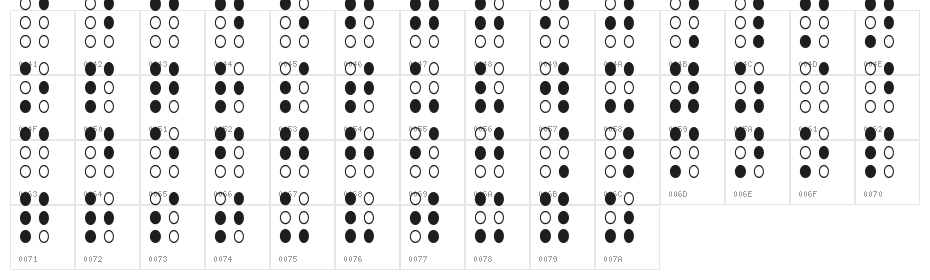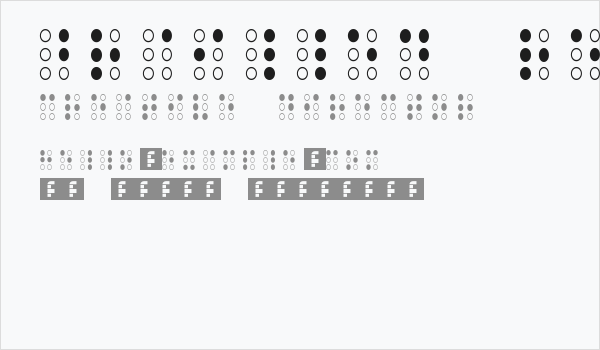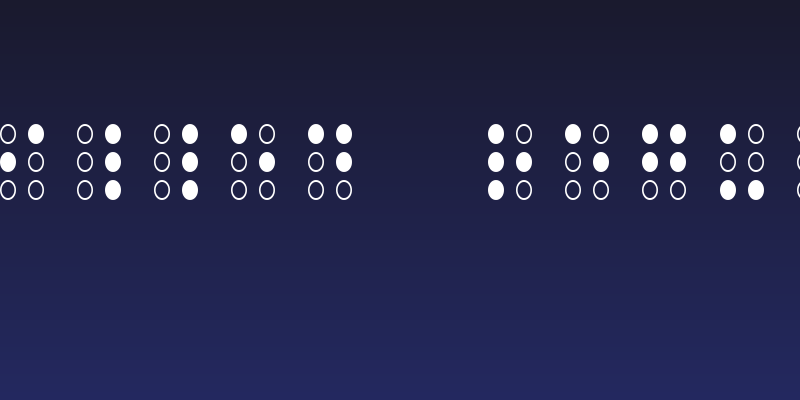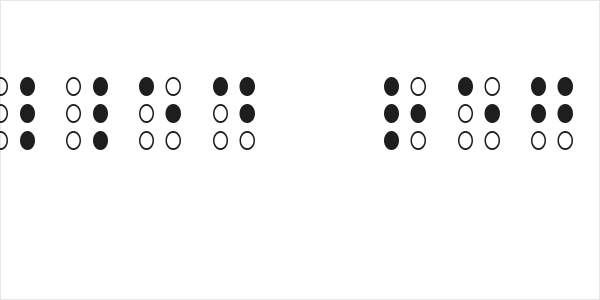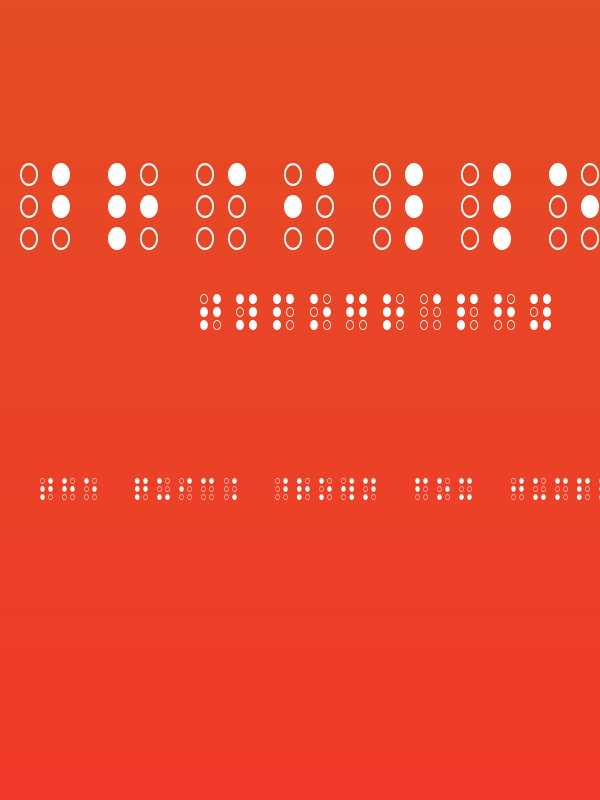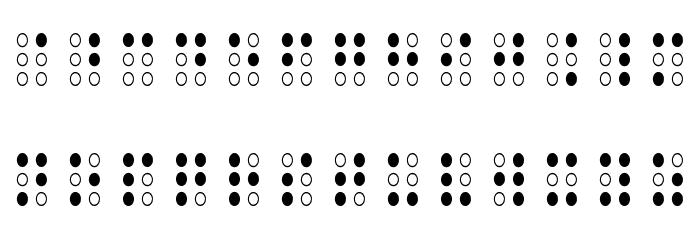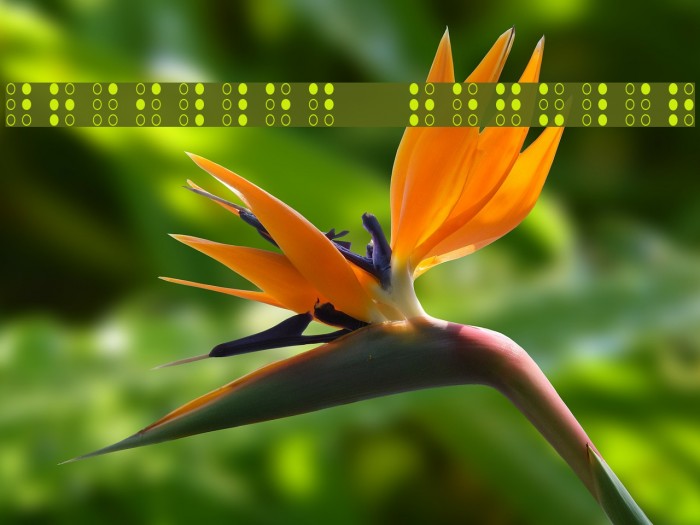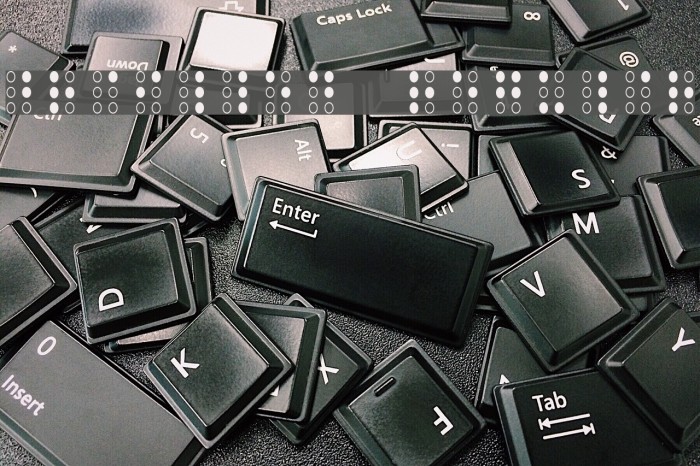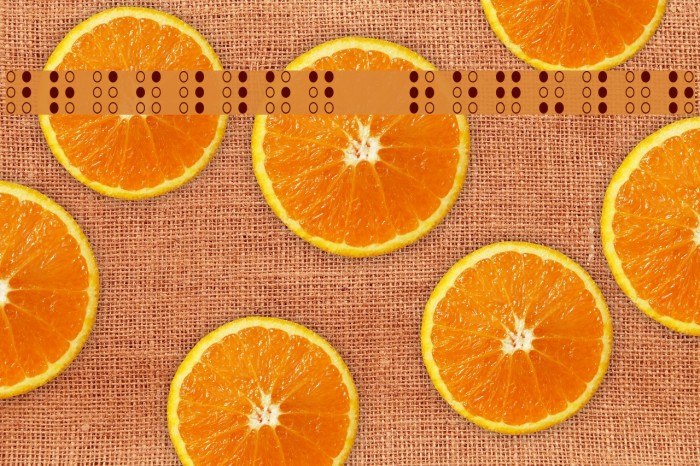
Brailled Regular Font
Brailled Regular Description
This font is a tactile writing system used by people who are visually impaired. It consists of patterns of raised dots arranged in cells of up to six dots in a 3x2 configuration. Each cell represents a letter, numeral, or punctuation mark. The design is highly functional, focusing on touch rather than visual aesthetics. The dots are evenly spaced and consistent in size, ensuring clarity and ease of reading through touch. This system is essential for accessibility, allowing for effective communication and literacy for those who rely on tactile reading.
| Overall Style | Functional |
| Use Case | Accessibility, Educational materials |
| Proposed Projects | Ideal for creating accessible materials such as books, signs, and labels for visually impaired individuals. |